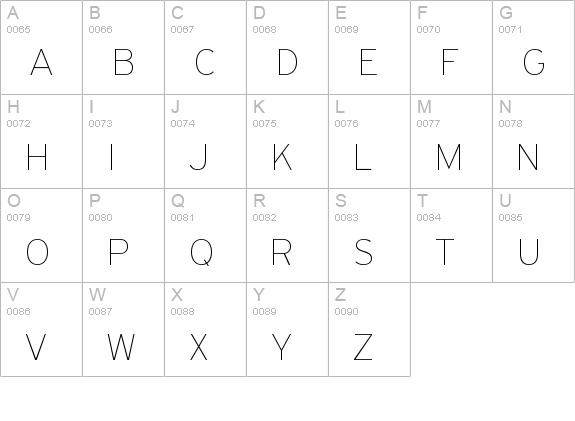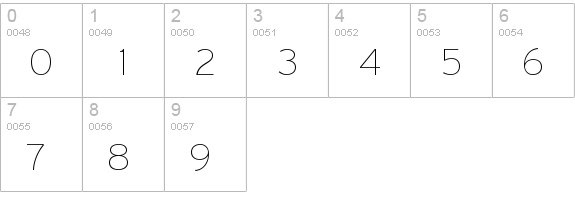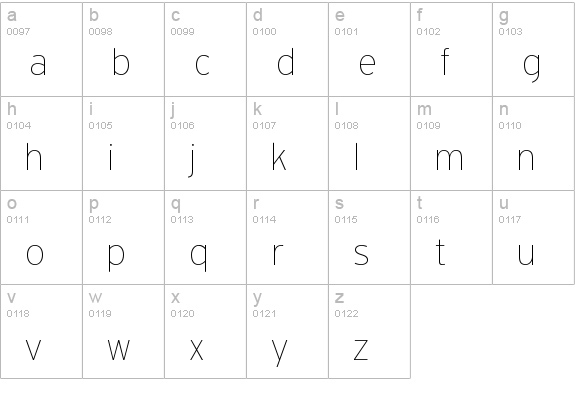
PFHighwaySansPro-ExtraThin is a modern and sleek typeface that exudes elegance and sophistication. With its ultra-thin strokes and clean lines, this font is perfect for creating a minimalist and contemporary look in your designs. Whether you are working on branding, editorial design, or any other creative project, PFHighwaySansPro-ExtraThin will add a touch of class and refinement. The best part is that PFHighwaySansPro-ExtraThin is available for free download at FontsMarket.com. This means you can easily access this premium font without any cost, making it a valuable addition to your font library. Don't miss out on the opportunity to enhance your designs with PFHighwaySansPro-ExtraThin and elevate your work to the next level.